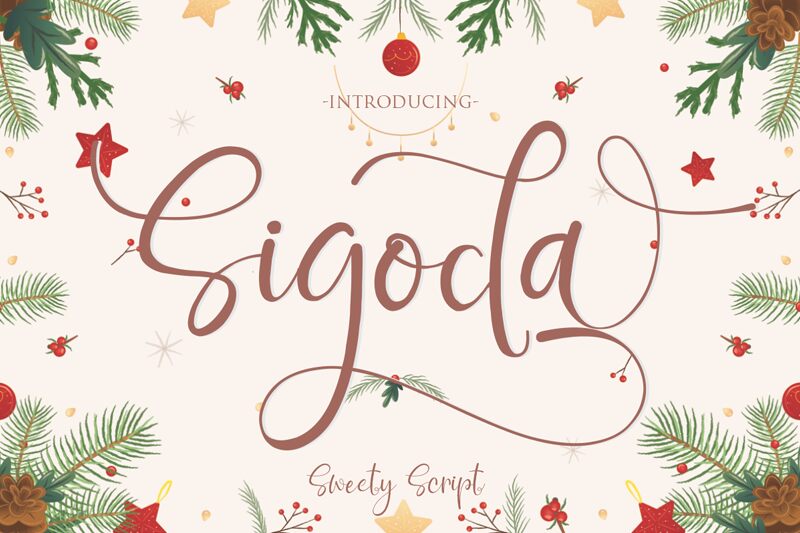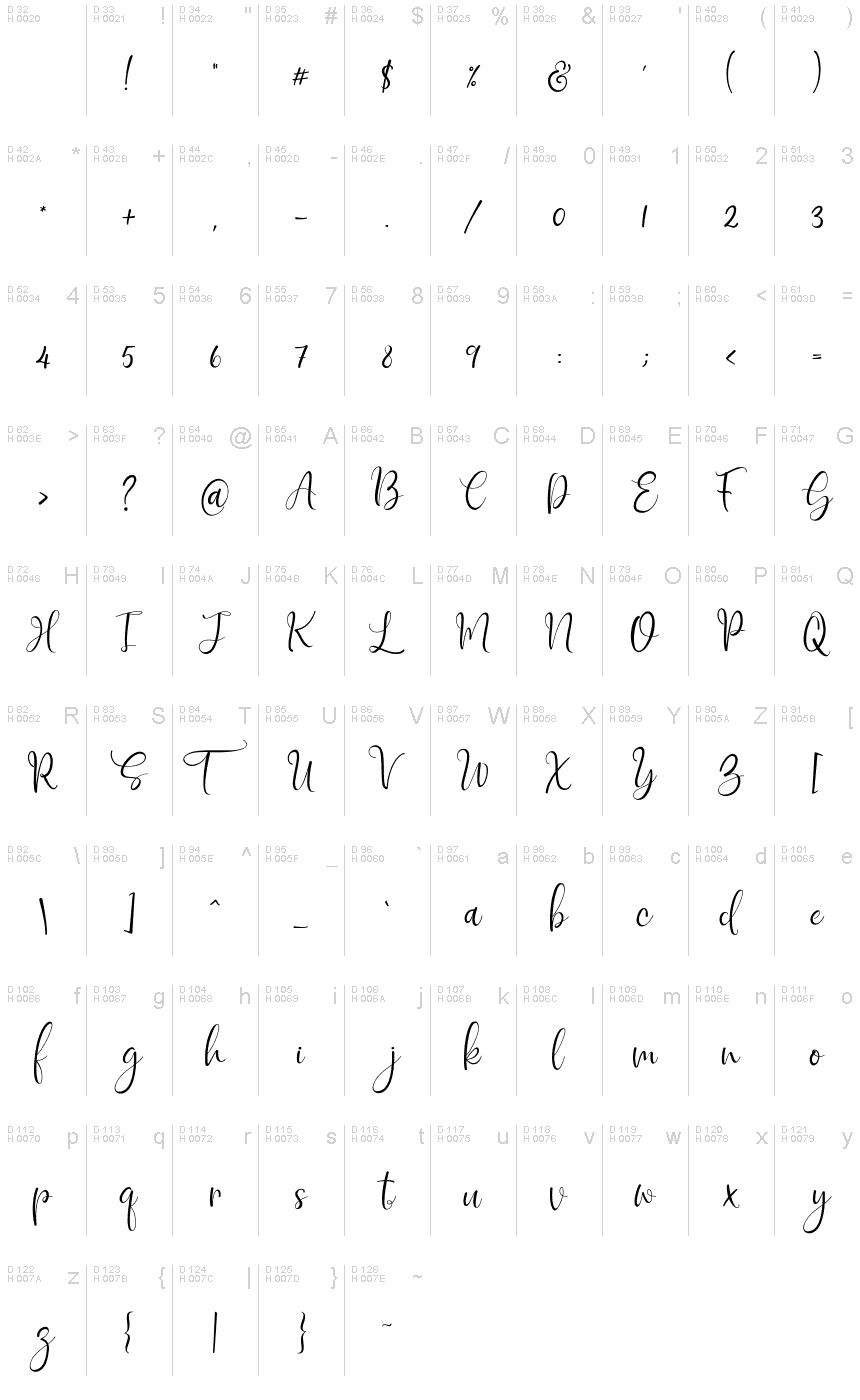
Sigoda
Introducing the Sweety Script font, "Sigoda" ! Sigoda - a new fresh & modern script with a handmade calligraphy style, decorative characters and a dancing baseline! So beautiful on invitation like greeting cards,cover book, branding materials, business cards, quotes, posters, logo, invitation, stationery, wedding designs, social media posts, advertisements, product packaging, product designs, label, photography, watermark,and more !
Sigoda come with 549 glyphs ,includes full set of gorgeous uppercase and lowercase letters, multilingual support, punctuation, ligatures, alternates, and stylisticset from ss01 to ss14 gorgeous extras from a to z and beginning and ending numerals swashes. everything can be easily accessed using software that supports OpenType. Like Adobe Indesign, Adobe Illustrator CS, Adobe Photoshop CC, and Corel Draw.
Features :
Unique ligatures
Stylistic sets
Basic Latin A-Z and a-z
Numbers
International Symbols Support